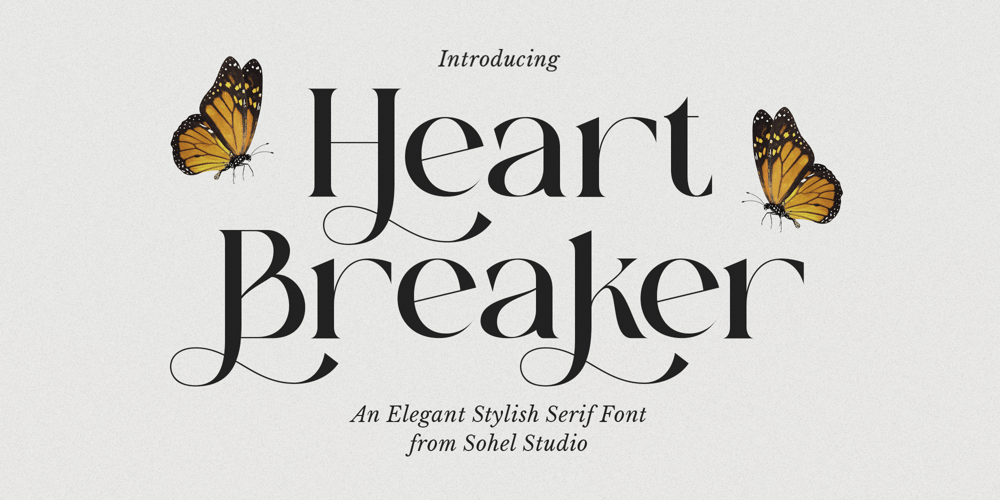
Heart Breaker Font Family was designed by Akhmad Husain Rifa’i and published by Sohel Studio. Heart Breaker contains 1 styles and family package options. Introducing Heart Breaker, a thin elegant serif font crafted to infuse your designs with sophistication and distinctiveness. This font is perfect for designers who aim to enhance their work with a touch of refined elegance and unique style.Heart Breaker features unique alternates and ligatures, providing you with a versatile toolkit to create stunning and original typography. Its delicate strokes and modern minimalism make it ideal for various design applications, from wedding invitations and corporate branding to editorial layouts and cinematic posters.Inspired by classic serif fonts and infused with a contemporary flair, Heart Breaker offers a timeless yet modern aesthetic. Its elegant design makes it perfect for high-end projects that demand a premium and sophisticated touch. The font seamlessly blends the charm of art deco and the futuristic vibes of fonts like Helvetica and Futura, creating a unique fusion that stands out.Whether you’re working on love-themed projects, fancy event invitations, or designing for chic, tropical settings, Heart Breaker adds a touch of grace and style that is both funky and refined. It’s ideal for college materials, beach-themed designs, and nature-inspired projects, ensuring that your work is always fresh and captivating. The font’s versatility extends to summer and nature-inspired themes, making it suitable for a variety of contexts.Discover the elegance and modern beauty of Heart Breaker, a serif font that combines thin, graceful lines with unique alternates and ligatures to create a truly unique and stylish typographic experience. Perfect for those seeking a cursive elegance and a futuristic touch in their design projects.